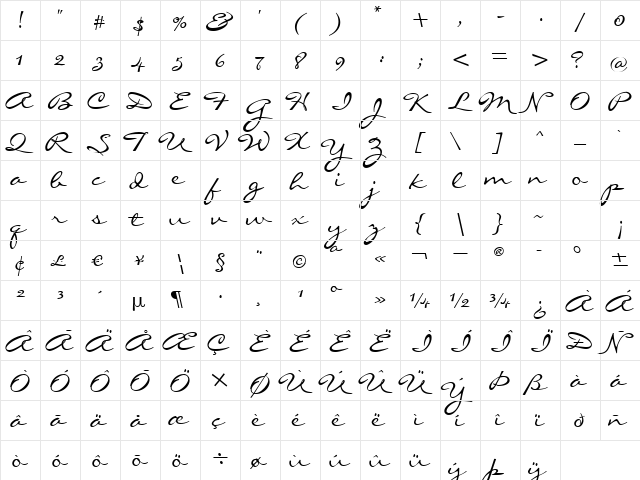
LiorahBT SemiUpright Regular
Design Context for LiorahBT SemiUpright Typeface
LiorahBT SemiUpright takes a measured approach to typography — its balanced proportions and neutral character make it a reliable workhorse for both digital and print work.